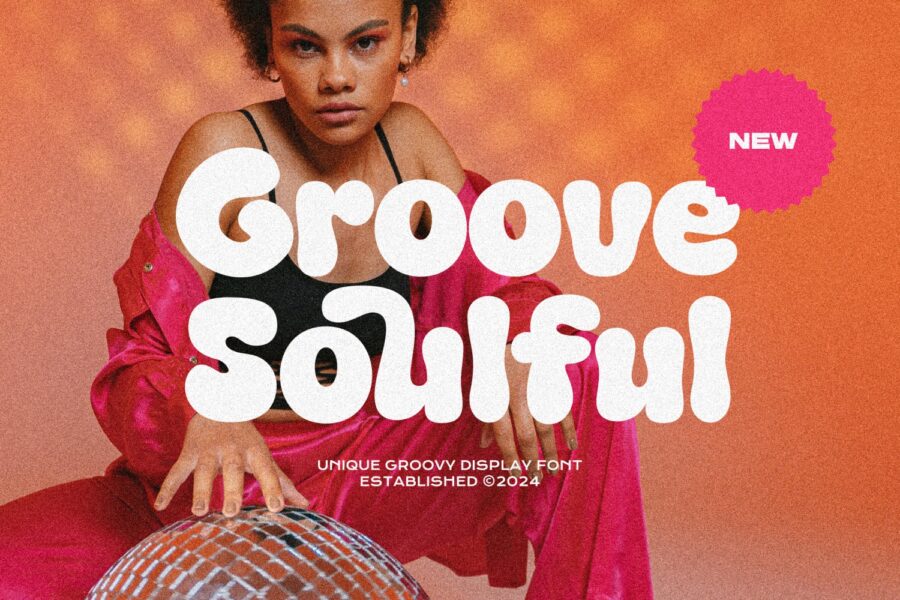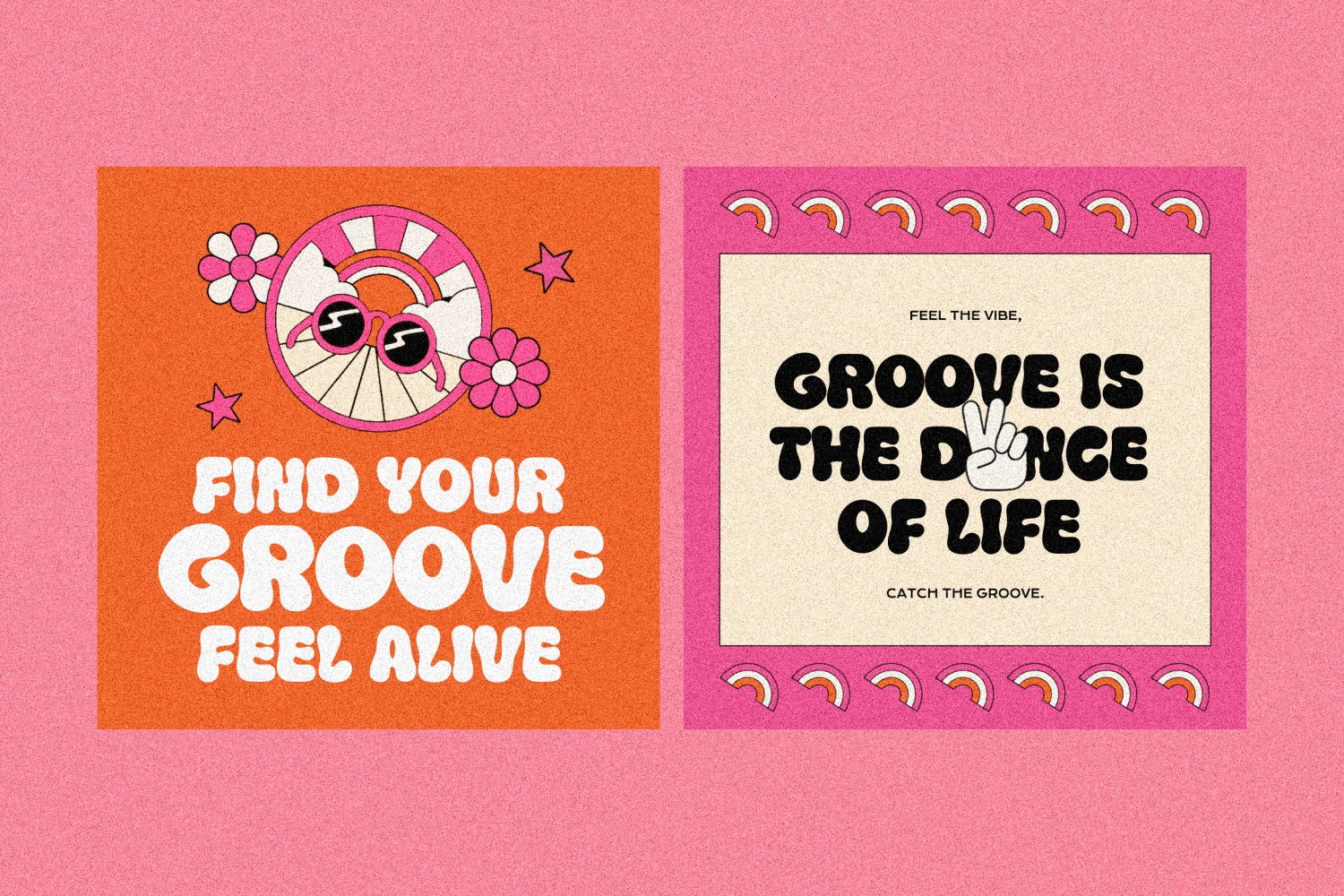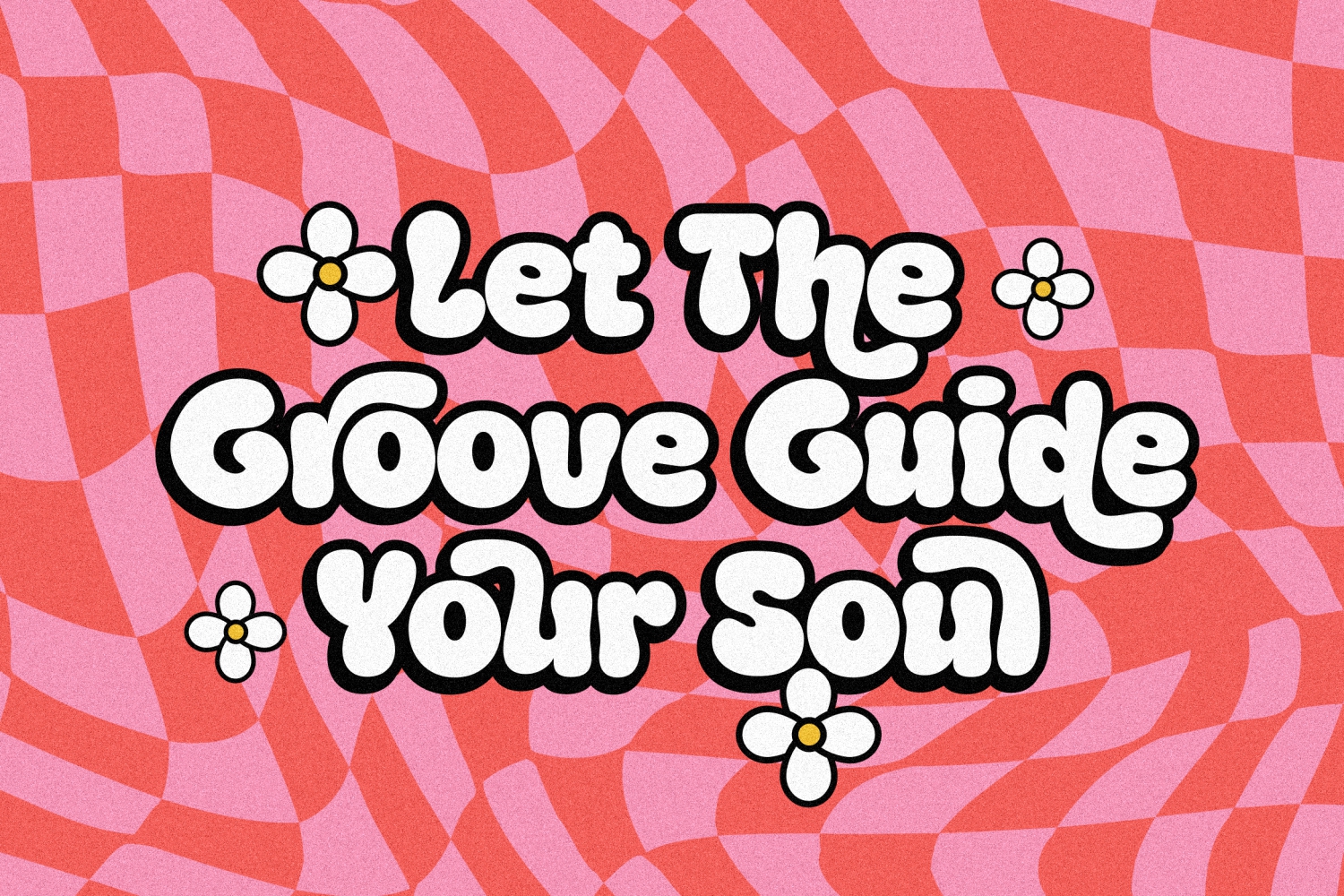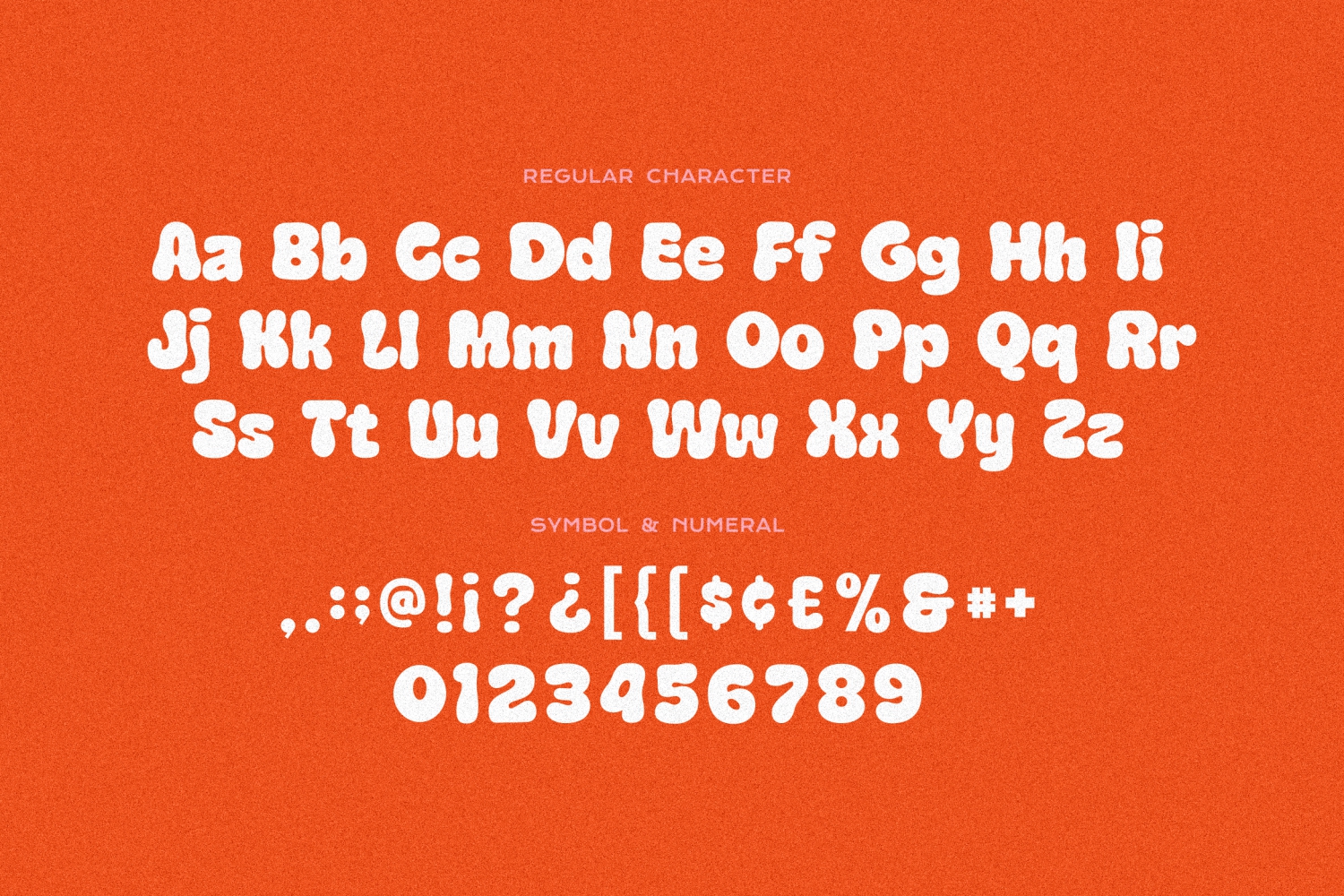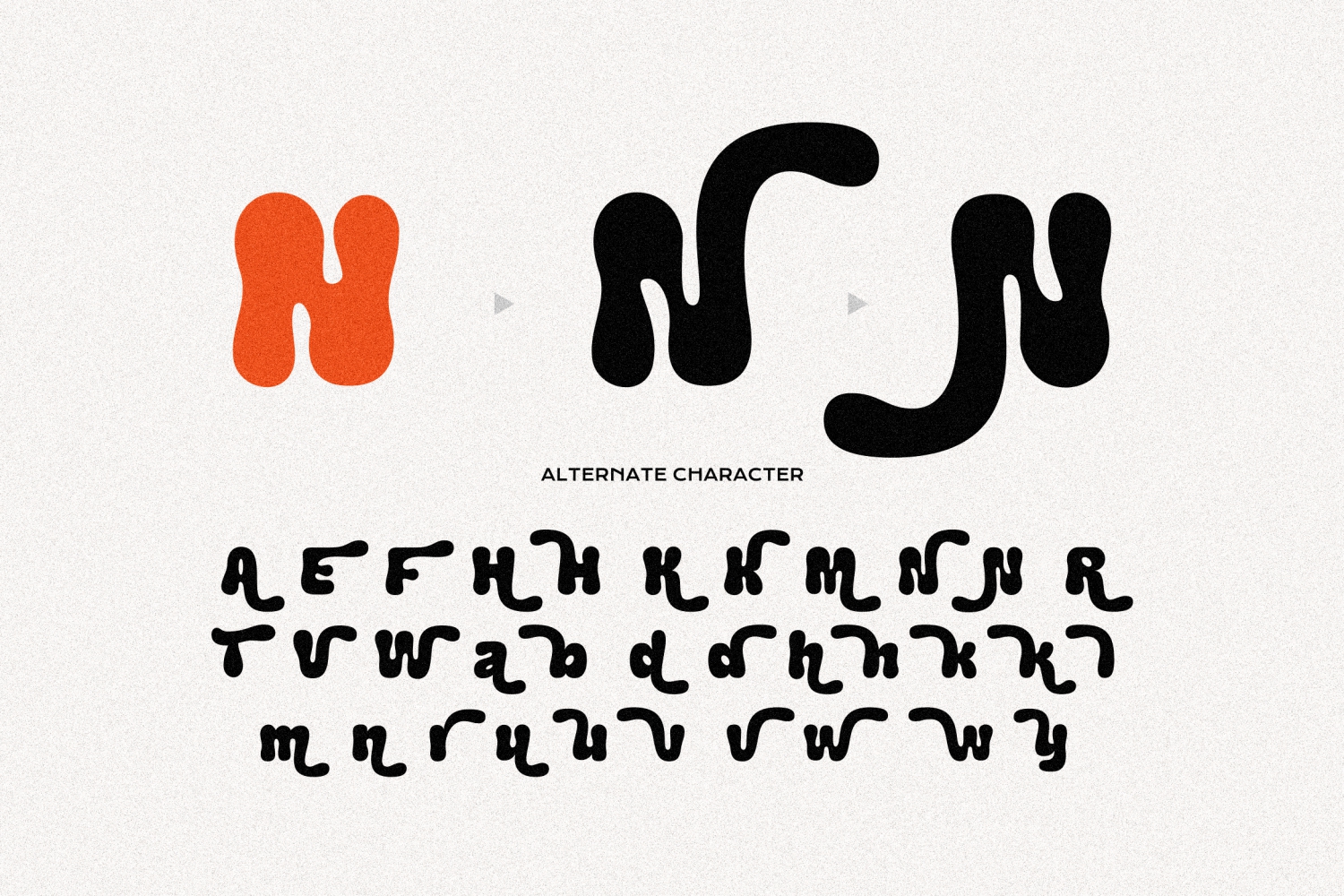
Groove Soulful is a playful and bold display font inspired by the vibrant energy of the ’70s groovy era. With its bubbly letterforms and smooth curves, this font brings a nostalgic yet modern touch to your designs. Perfect for retro-themed projects, music posters, fashion branding, and social media graphics, Groove Soulful adds a fun and soulful vibe that instantly catches attention.
This font comes with uppercase, lowercase, numbers, punctuation, and a set of unique alternate characters that let you create dynamic and eye-catching compositions. Whether you’re crafting funky quotes, event flyers, or colorful packaging, Groove Soulful will guide your design into a world full of rhythm, joy, and personality.